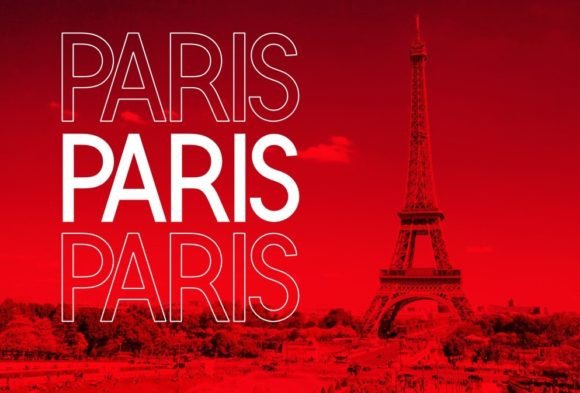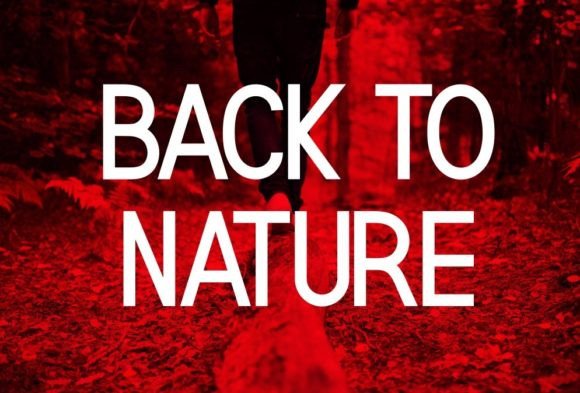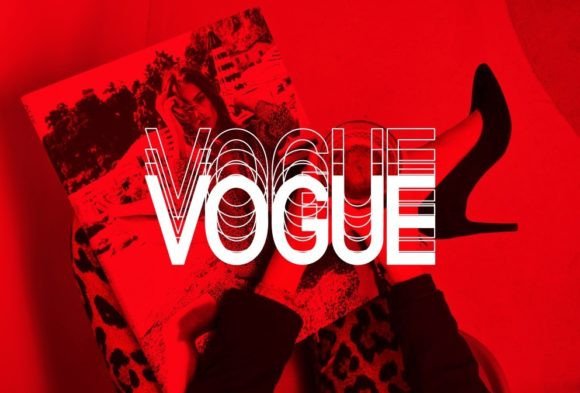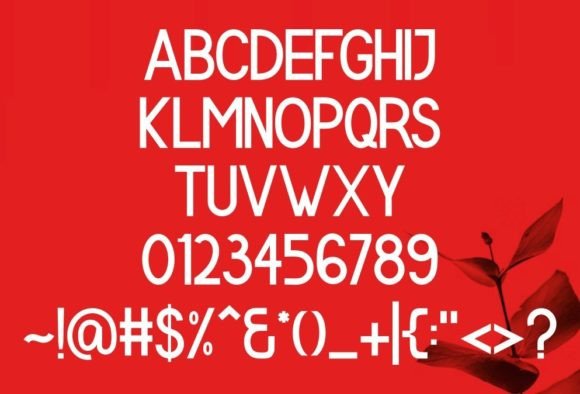
Introduction to Pro Balance Font
As you sit at your desk, staring at a blank canvas, you know that the right font can make all the difference. The cursor blinks, waiting for your next move, and suddenly, a spark of inspiration hits. You envision a clean, modern design that exudes professionalism and sophistication. This is where the Pro Balance Font comes in – a stylish sans serif font that elevates your creative project to the next level.
Whether you’re working on a logo, a brochure, or a website, the Pro Balance Font is a valuable asset in your design arsenal. Its transparent background and high-quality design make it a versatile resource for any creative project. And the best part? It’s available for free download, making it an accessible design resource for designers of all levels.
Key Features of Pro Balance Font
- High-quality font design suitable for creative projects and professional applications.
- Unique balance of elegance and sophistication, ideal for creating visually appealing content with a transparent background.
- Designed with a focus on readability and legibility, making it perfect for body text and headings in creative projects.
- Comes in a range of styles and weights, allowing designers to experiment with different looks and feels for their design work.
Honest Review: Pro Balance Font
As a designer, I’m always on the lookout for high-quality fonts that can elevate my creative projects. The Pro Balance Font is a great addition to any design resource library.
Here are some features that I really like about the Pro Balance Font:
- ✨ High-quality design: The font is clean, modern, and professional-looking, making it perfect for a wide range of creative projects.
- ⚠️ Limited font weights: The font only comes in a few weights, which can limit its versatility in certain design projects.
- ⚠️ No italic version: Unfortunately, the font doesn’t have an italic version, which can make it difficult to use in certain creative contexts.
Overall, I’m impressed with the Pro Balance Font. It’s a great design resource that’s perfect for designers who want a high-quality, modern font without breaking the bank. With a little creativity, I think it has the potential to elevate even the most basic design projects to the next level.
Tips for Getting the Most Out of Pro Balance Font
Use Pro Balance Font in combination with other high quality design resources to create a cohesive and professional-looking design. Experiment with different font sizes and styles to achieve the desired effect. Consider using a transparent background to make your design stand out.
The Pro Balance Font is ideal for use in a variety of creative projects, including business cards, brochures, and presentations. It is also suitable for use in digital designs, such as social media graphics and website headers.